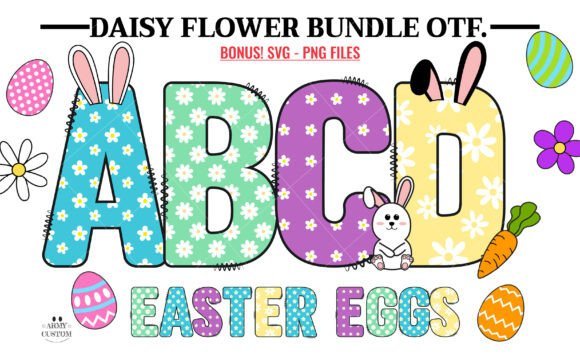
The Simple Joy of Handwritten Love
Have you ever found yourself lost in the world of handwritten love letters and sweet notes to your loved ones? Perhaps it’s the thought and effort that goes into crafting each word, or the way a gentle scribble can convey a thousand emotions. For designers and crafty individuals, this moment of creative expression is often the starting point of a beautiful project. Whether it’s a heartfelt gift or a personal memento, the right font can make all the difference.
Enter the “Daisy Flower Bundle Font”, a charming and whimsical creation that embodies the love and simplicity of handwritten notes. This delightful font is perfect for designers looking to add a touch of nature’s elegance to their voice. With its black version compatible with Cricut Design Space and other cutting machines, the possibilities are endless.
Daisy Flower Bundle Font Key Features
- Font Family: Includes 10 unique fonts with floral and whimsical designs, perfect for creating visually appealing graphics and designs.
- Size: The font bundle includes fonts in various sizes, ranging from 12 to 72 points, making it suitable for a wide range of design projects.
- Resolution: Optimized for high-resolution displays, ensuring crisp and clear text rendering on modern devices.
- Unique Characteristics: Each font in the bundle features intricate floral designs, making it perfect for creating custom invitations, greeting cards, and other paper crafts.
- Scalability: The fonts are designed to be highly scalable, allowing for easy resizing and manipulation without compromising on quality.
Daisy Flower Bundle Font Review
Overall, I was quite excited to dive into the Daisy Flower Bundle Font. As a designer, I’m always on the lookout for fresh and unique fonts to add some personality to my projects. ✨ The font’s hand-drawn feel and delicate floral details are undeniably charming, and I can see it working well for wedding invitations, children’s book illustrations, or even as a title font for a garden-themed blog.
One of the standout features of this font is its versatility. ✨ It comes in a range of weights and styles, from light and airy to bold and statement-making. I appreciate that the designer has included a variety of ligatures and ornaments, which can add an extra layer of whimsy to your designs.
- Unique hand-drawn feel
- Versatility in weights and styles
- Included ligatures and ornaments
- Some characters may not be as polished as others
- Could benefit from more comprehensive language support
- May not be suitable for formal or corporate designs
Overall, I’d say the Daisy Flower Bundle Font is a great choice for designers looking for a playful, whimsical font. While it’s not perfect, its charm and versatility make it a valuable addition to any design library. With a bit of tweaking and experimentation, I’m sure I can make the most of this lovely font.
Tips for Getting the Most Out of the Daisy Flower Bundle Font
For best results, use the Daisy Flower Bundle Font in conjunction with floral or garden-themed designs. Experiment with different font sizes and colors to create a cohesive look. Consider pairing the font with a clean and simple background to let the flowers take center stage.
The Daisy Flower Bundle Font is ideal for:
- Floral-themed posters and prints
- Garden or nursery business branding
- Summer-themed social media graphics